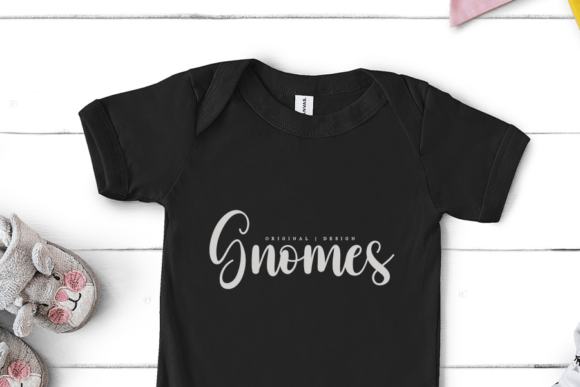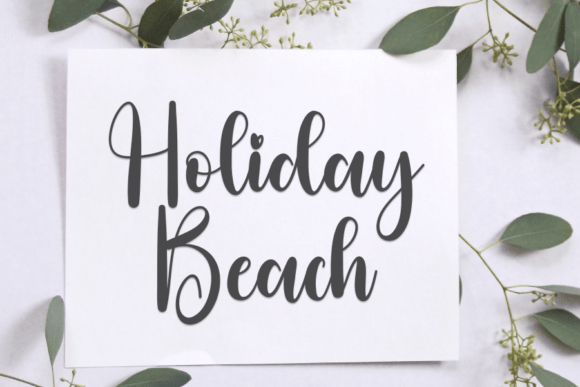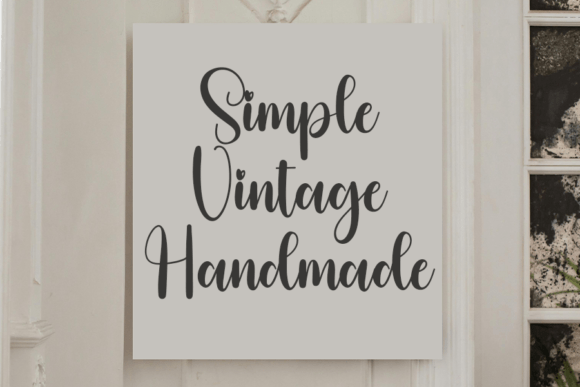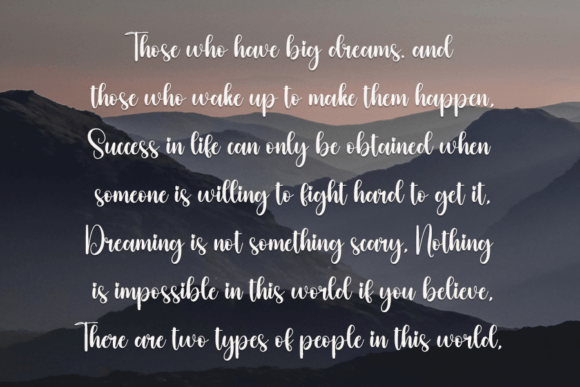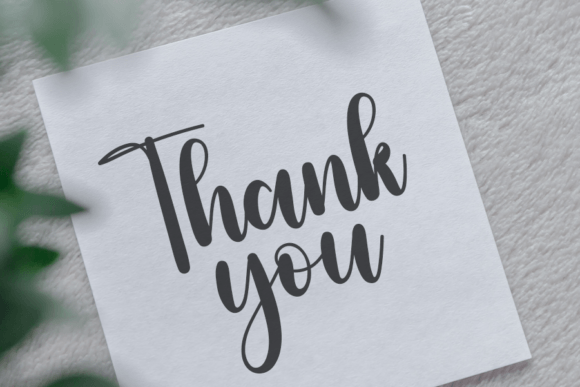
Introducing Happy Birthday Font: The Perfect Addition to Your Design Arsenal
Are you tired of using the same old fonts for your designs? Look no further! Happy Birthday Font is a delicate handwritten font that is carefully crafted to add a touch of coolness and uniqueness to your creations. This versatile font can be used for a wide range of applications, from writing letters and invitations to labeling food products and creating eye-catching titles.
The Story Behind Happy Birthday Font
Happy Birthday Font is designed with love and care to bring a personal touch to your designs. The font’s delicate and handwritten style makes it perfect for creating warm and inviting designs that capture the essence of special occasions. Whether you’re a designer, crafter, or DIY enthusiast, Happy Birthday Font is sure to become your go-to font for all your creative projects.
Key Features of Happy Birthday Font
- Delicate Handwritten Style: Happy Birthday Font boasts a beautiful, delicate handwritten style that adds a touch of elegance to your designs.
- Versatile: This font can be used for a wide range of applications, including letters, invitations, food products, titles, and more.
- Unique and Cool: Happy Birthday Font is carefully crafted to provide a cool and unique design that sets your creations apart from the rest.
- Easily Readable: Despite its delicate style, Happy Birthday Font is easily readable, making it perfect for both digital and print designs.
Uses of Happy Birthday Font
Happy Birthday Font is an incredibly versatile font that can be used in a variety of ways. Here are some ideas to get you started:
- Birthday Invitations: Create custom birthday invitations that set the tone for a special celebration.
- Party Decorations: Use Happy Birthday Font to create eye-catching party decorations, such as banners, garlands, and more.
- Food Labeling: Add a personal touch to your food products, such as baked goods, candies, and other treats.
- Stationery: Create custom stationery, including notebooks, journals, and greeting cards.
- Digital Designs: Use Happy Birthday Font in your digital designs, such as social media graphics, blog posts, and more.
Tips for Using Happy Birthday Font
To get the most out of Happy Birthday Font, here are some tips to keep in mind:
- Pair with Other Fonts: Experiment with pairing Happy Birthday Font with other fonts to create a unique and visually appealing design.
- Use in Combination with Images: Combine Happy Birthday Font with images or illustrations to add an extra layer of depth to your design.
- Experiment with Colors: Try out different colors and color combinations to find the perfect match for your design.
- Keep it Simple: Don’t be afraid to keep your design simple and clean to let Happy Birthday Font shine.